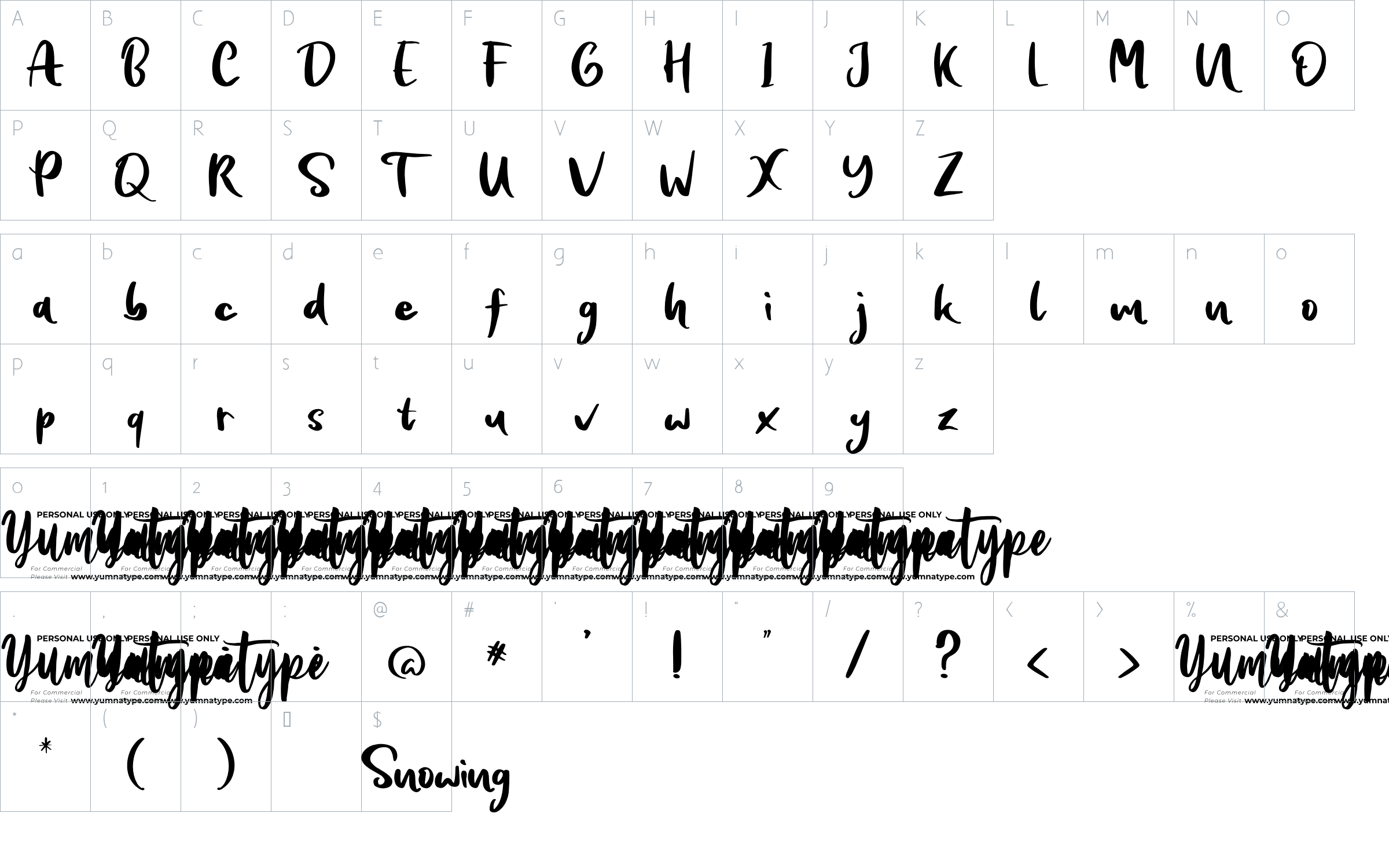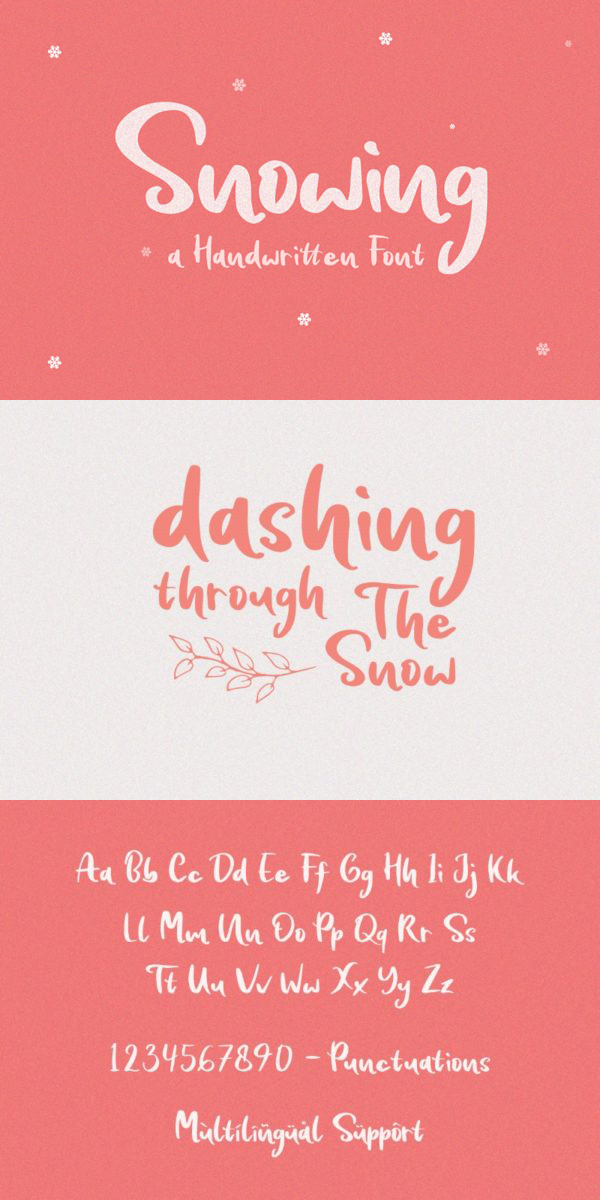
Snowing Font
About Snowing
Introducing Snowing Handwritten Font. With a classy and natural handwritten style, it brings a classy and chic typeface. Snowing is best used for branding, logotype, quotes and etc .